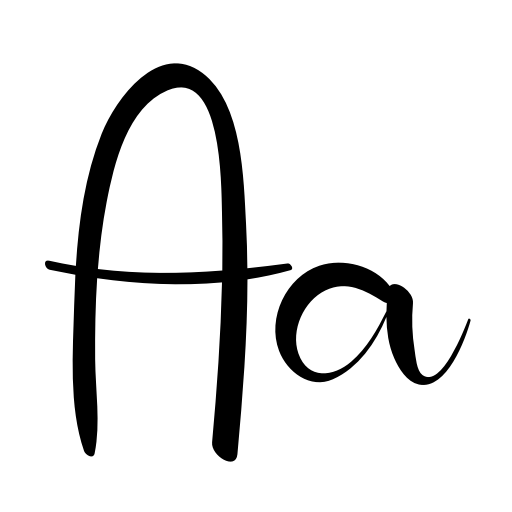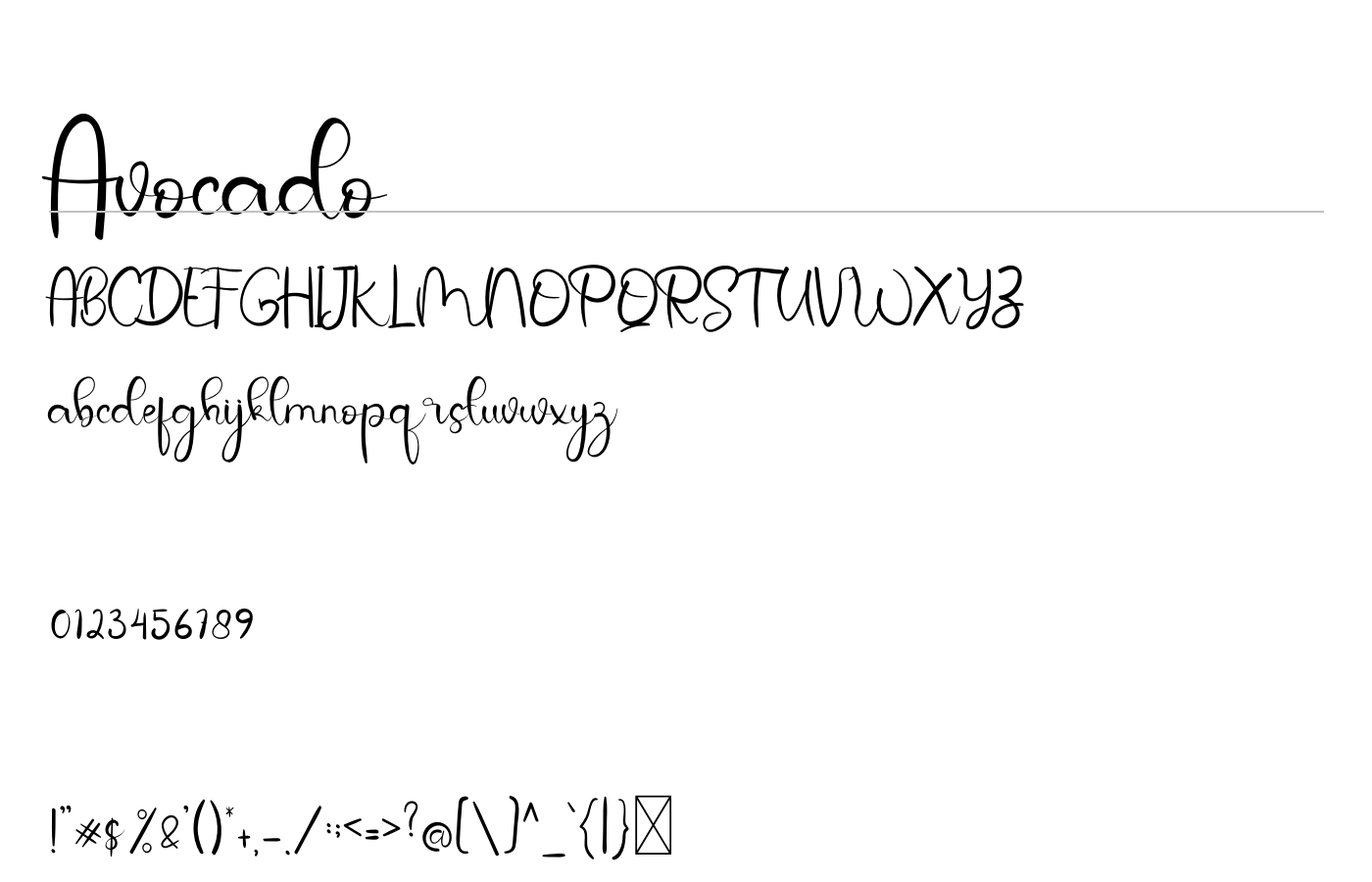
Avocado is a whimsical handwritten script font characterized by its playful, delicate strokes and tall, narrow letterforms. Its fine lines and looping details give it an airy, elegant feel, making it perfect for creative branding, invitations, and feminine design projects that seek a touch of charm and personality. This font works especially well in contexts where a light, friendly, and artistic style is desired.
Avocado Font